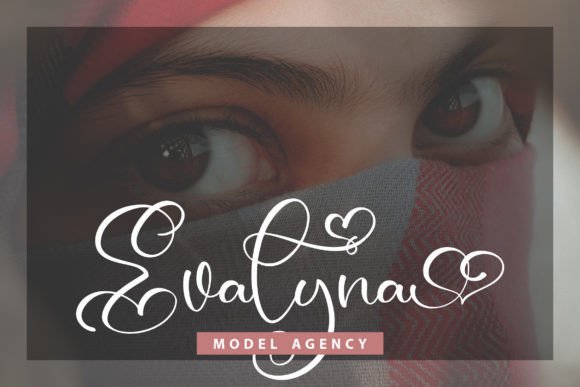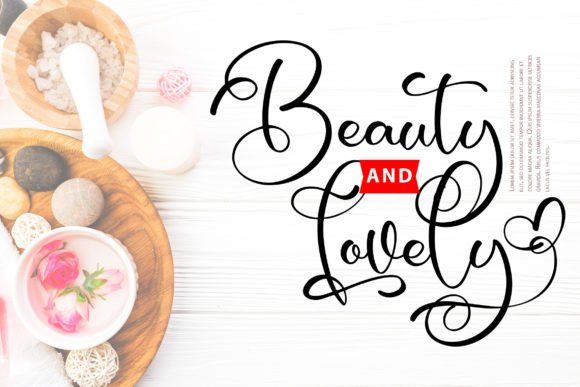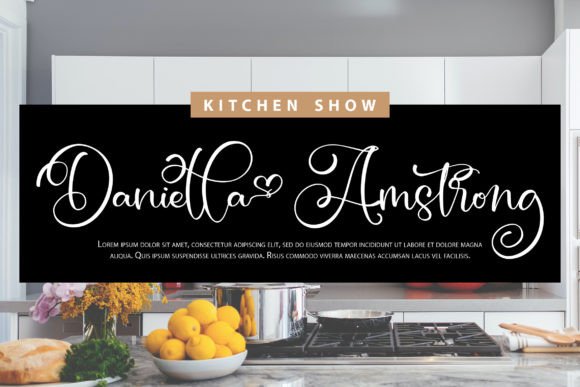
Introduction to Mellenoy Font
As designers, we’ve all been there – staring at a blank page, searching for the perfect font to bring our creative project to life. The search can be overwhelming, but what if we told you that we’ve found a game-changer? Enter the Mellenoy Font, a beautiful and refined script font that’s about to become your new go-to design resource.
With its classy, elegant, and modern look, the Mellenoy Font is perfect for logos, branding, invitations, stationery, wedding designs, social media posts, and much more. Its high-quality design makes it a valuable addition to any designer’s toolkit, and the best part? It’s free to download with a transparent background, making it easy to integrate into your designs.
- High-quality design with a transparent background, ideal for creative projects.
- Includes 3 font styles: Mellenoy Font Regular, Mellenoy Font Italic, and Mellenoy Font Bold.
- Unique characteristics include a modern, elegant design with a subtle texture, making it suitable for various creative projects.
Honest Review: Mellenoy Font
I recently stumbled upon the Mellenoy Font, and I must say it’s been a delightful addition to my design arsenal. As a designer, I’m always on the lookout for high-quality fonts that can elevate my creative projects.
One of the standout features of the Mellenoy Font is its elegant and sophisticated design. The font is perfect for those who want to add a touch of luxury and refinement to their design. I’ve used it for a variety of projects, from wedding invitations to branding materials, and it always looks stunning.
- High-quality design that’s perfect for luxury branding
- Available with transparent background, making it easy to use in various design scenarios
⚠️ Limitations: The font only comes in a few weights, which can make it a bit limiting for more complex design projects. Additionally, the font may not be suitable for those who want a more modern or bold look.
Overall, I’m thoroughly impressed with the Mellenoy Font. It’s a beautiful addition to any designer’s toolkit, and I highly recommend it for those who want to create stunning, high-end designs.
Tips for Getting the Most Out of Mellenoy Font
Experiment with different font sizes, colors, and styles to add depth and visual interest to your designs. Use the transparent background feature to create seamless and modern designs.
The Mellenoy Font is ideal for a variety of creative projects, including logos, brochures, social media graphics, and presentations. Its high-quality design and transparent background make it a versatile and valuable design resource.
Q: Can I use the Mellenoy Font with a transparent background, and will it affect the font’s quality?
Yes, you can use the Mellenoy Font with a transparent background, which is ideal for design projects that require a subtle or textured look. The font’s quality will not be affected by the transparent background, as it is designed to work seamlessly with various design elements and backgrounds.